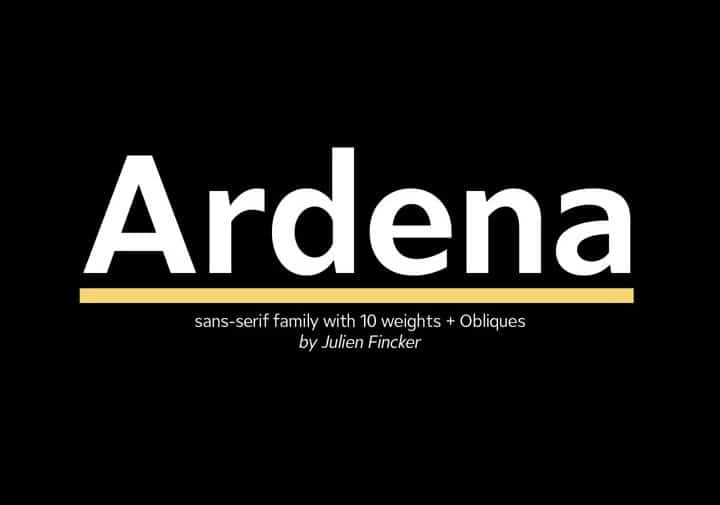
Ardena Font
Ardena Sans Serif Font is a low contrast sans serif typeface with a large x-height and spacious counters. While neutral and clear at first glance, it can be characterized as both pleasant and confident due to its open, rounded forms and vertical terminals. It can be used in both a restrained and expressive way.
The thinner and thicker weights are particularly suitable for strong headlines, while the middle weights can be used for typographic challenges and body text. Completed with an extensive character collection, it becomes a real workhorse. A versatile allrounder that is up to all challenges – for Corporate Identity, Editorial, Branding, Orientation and Guidance systems and much more.